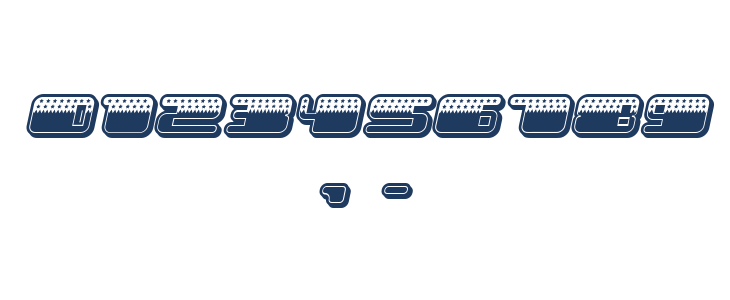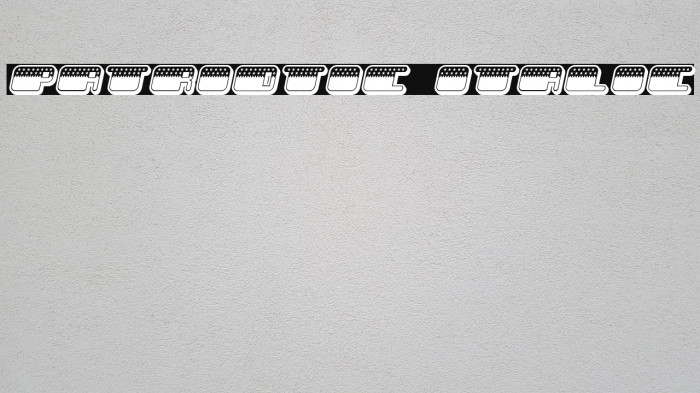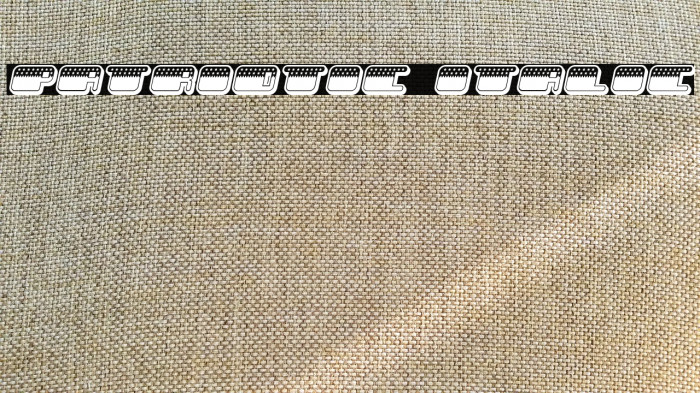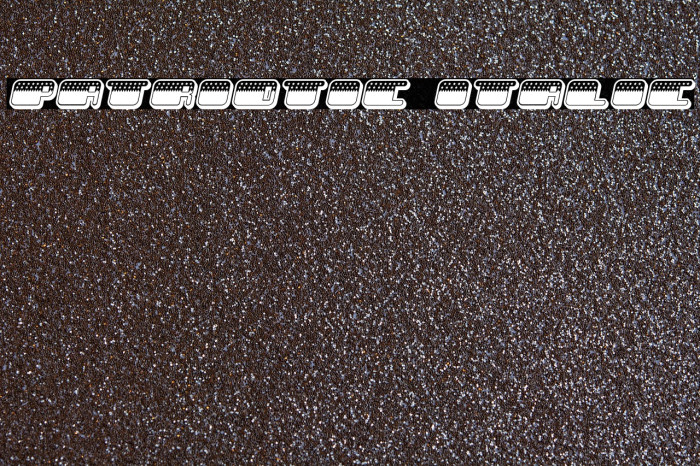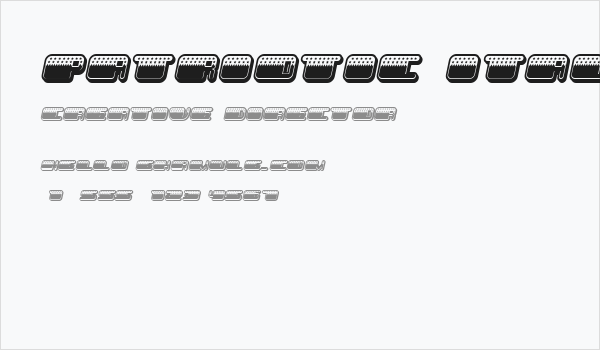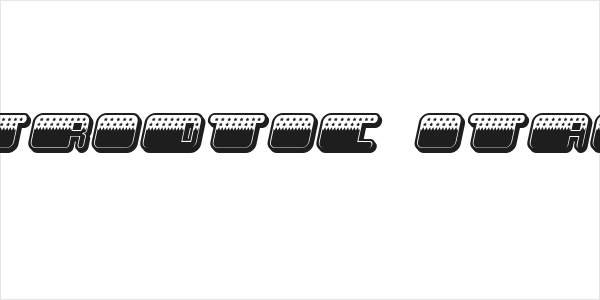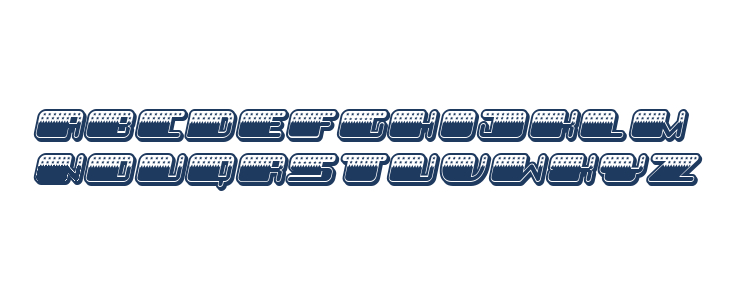
Patriotic Italic Font
Patriotic Italic Description
This font features a bold, decorative style with a strong sense of movement and flair. The characters are italicized, giving them a dynamic and forward-leaning appearance. Each letter is outlined with a thick border, adding depth and a three-dimensional effect. The interior of the letters is filled with a pattern of dots, creating a textured look that enhances the visual interest. The overall design is reminiscent of retro or vintage styles, with a playful yet sophisticated aesthetic. The numbers and special characters maintain the same stylistic elements, ensuring consistency across all glyphs.
| Overall Style | Retro, Decorative |
| Proposed Projects | Ideal for projects that require a bold and eye-catching design, such as posters, logos, or branding materials. It could also be used for themed events or retro-inspired designs. |